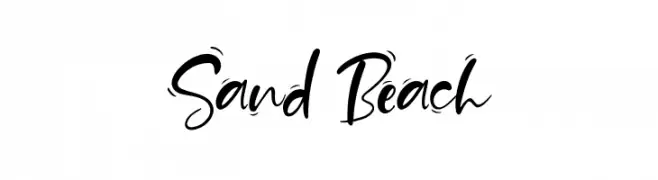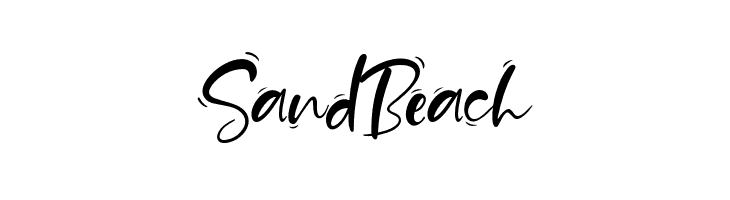
Casual handwritten script font.
A lively, cursive font with bold, expressive strokes and playful movement.
A dynamic handwritten font with fluid strokes and a brush-like texture.
A whimsical, playful font with tall, narrow letterforms and a hand-drawn feel.
A dynamic, handwritten-style font with fluid strokes and artistic flair.
A playful and whimsical script font with elegant curves and fluid strokes.
A playful, handwritten cursive font with medium contrast and fluid strokes.